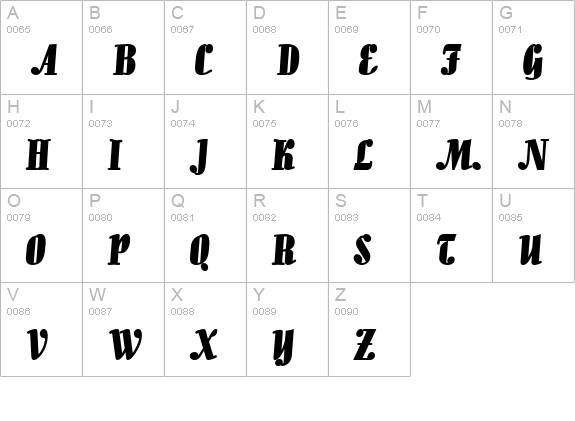
Aloe Bold is a strong, high-contrast variant in the Aloe typeface family \xE2\x80\x94 well suited to headlines, attention-grabbing titles, and strong calls-to-action.
Introducing Aloe Bold font - a modern and stylish typeface that exudes confidence and sophistication. With its clean lines and bold strokes, Aloe Bold is perfect for creating eye-catching designs that demand attention. Whether you're designing a logo, poster, or website, this versatile font will add a touch of elegance to any project. The best part? Aloe Bold is completely free to download at FontsMarket.com. That's right, you can elevate your designs with this premium font without spending a dime. So why wait? Head over to FontsMarket.com and start using Aloe Bold in your projects today!